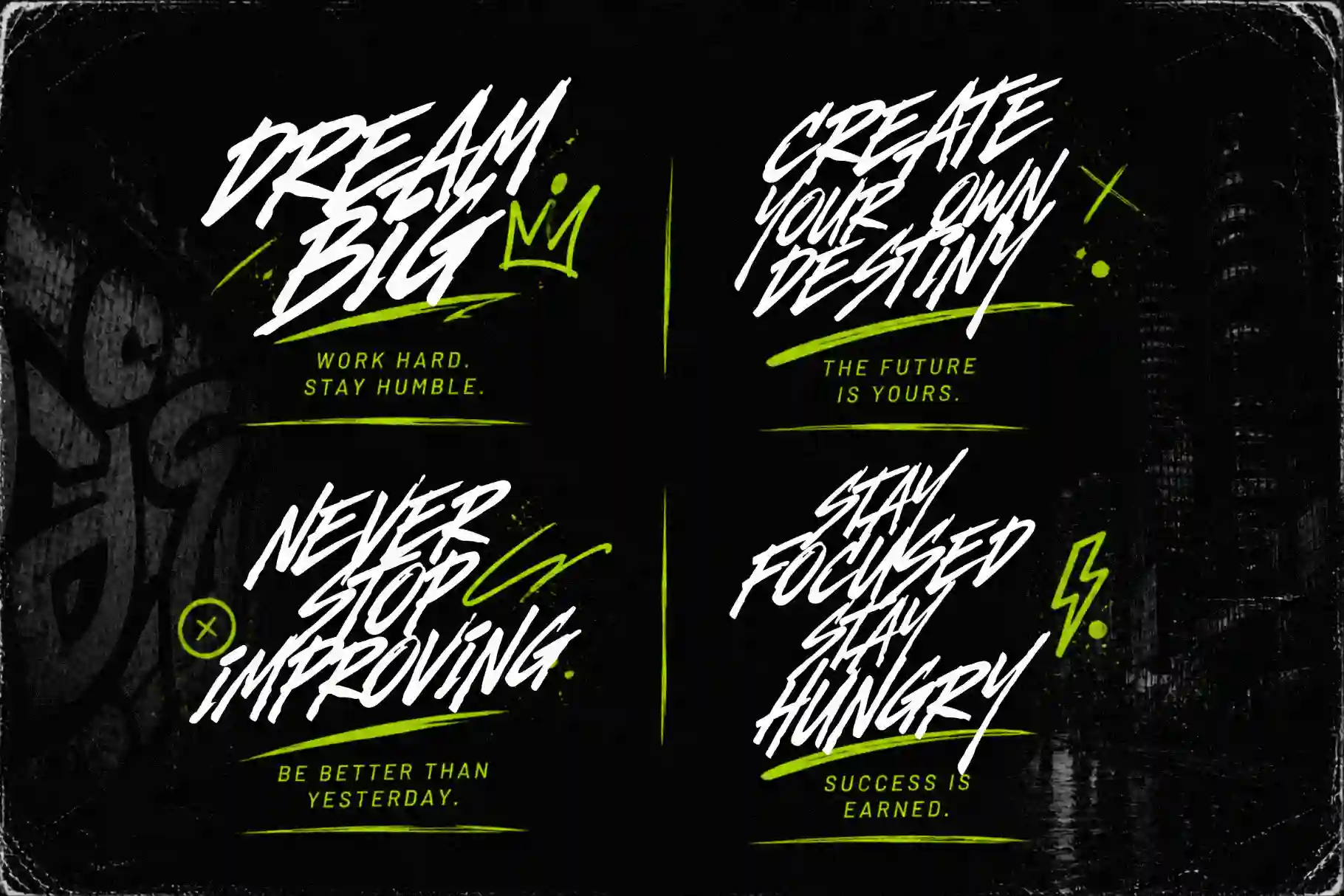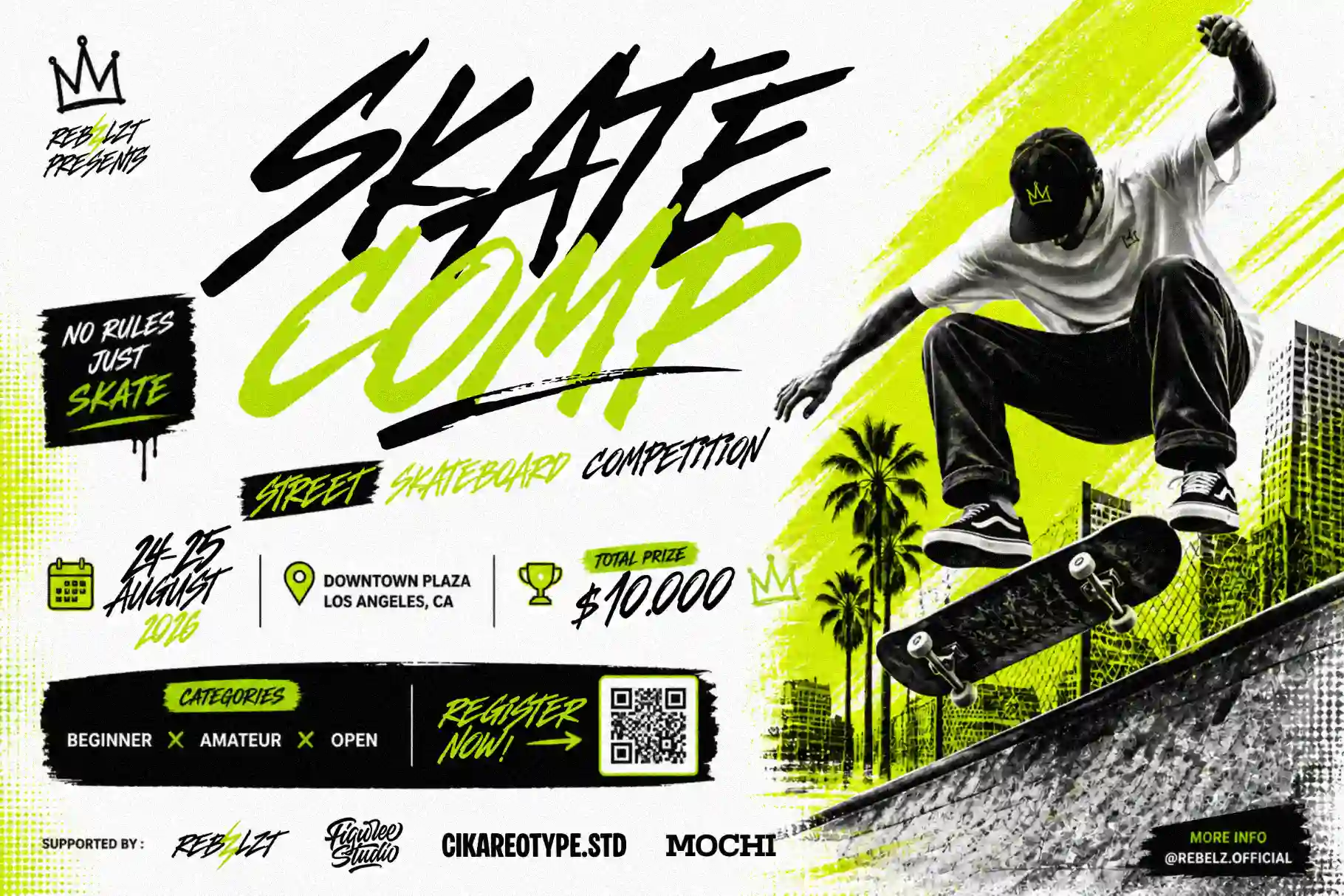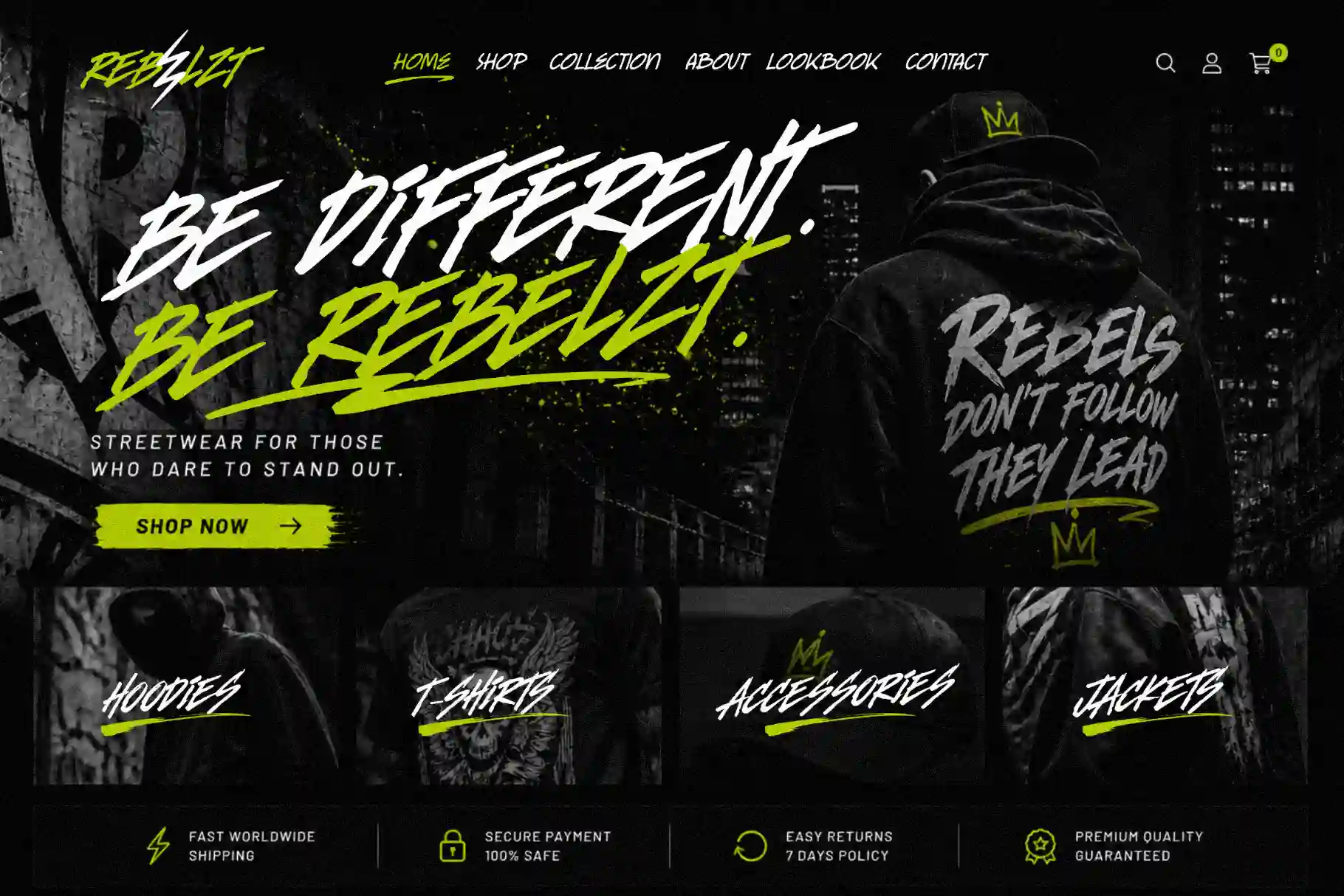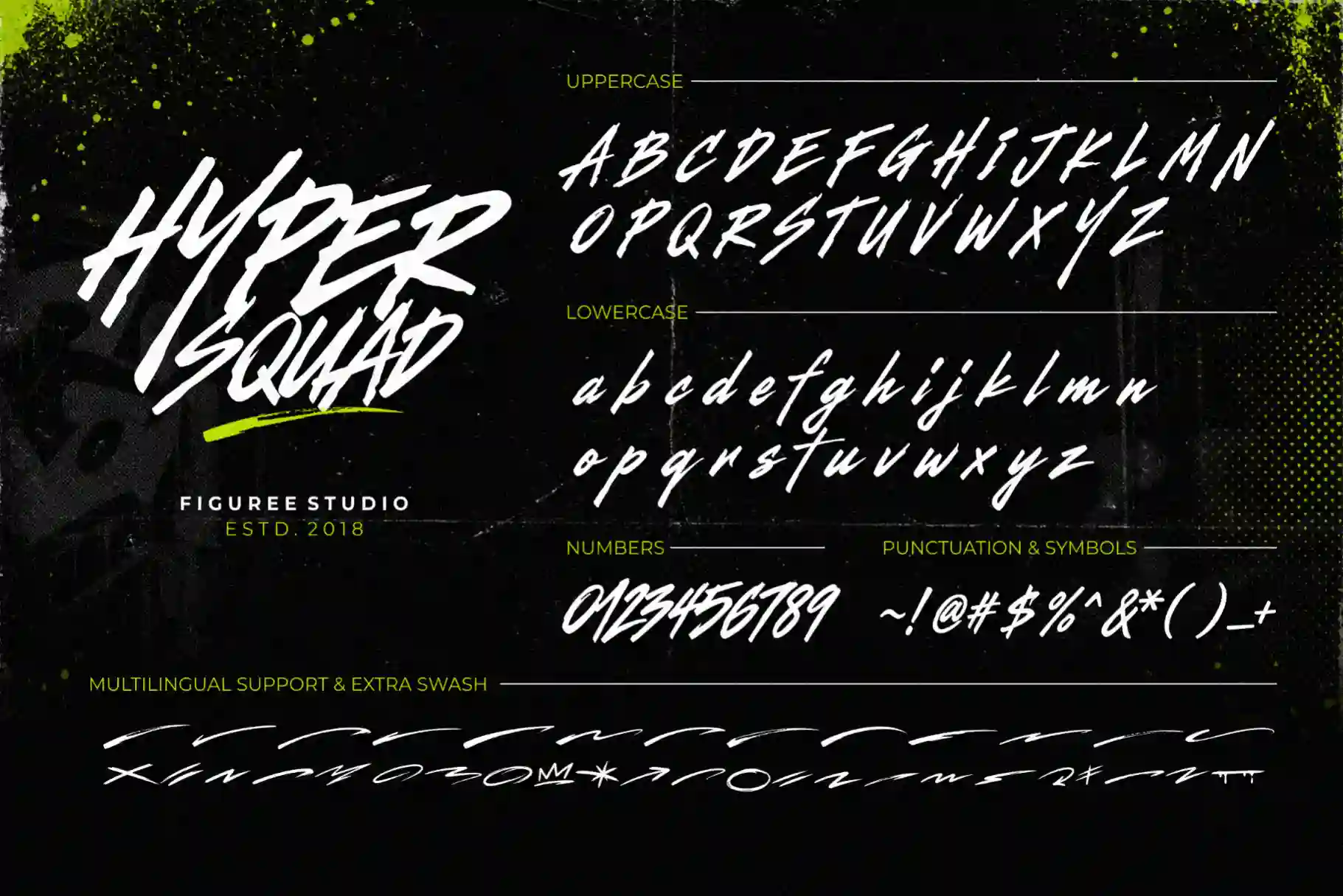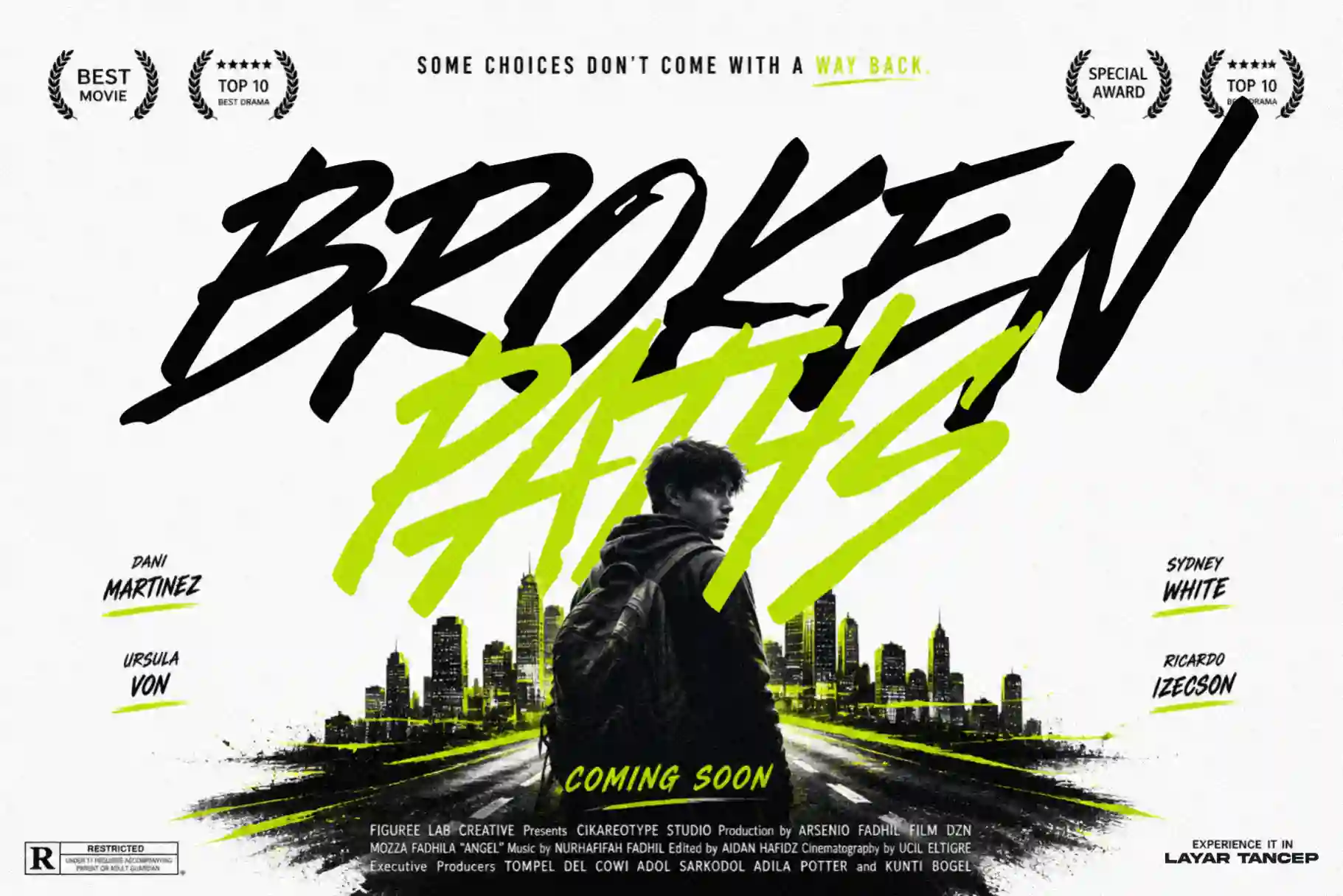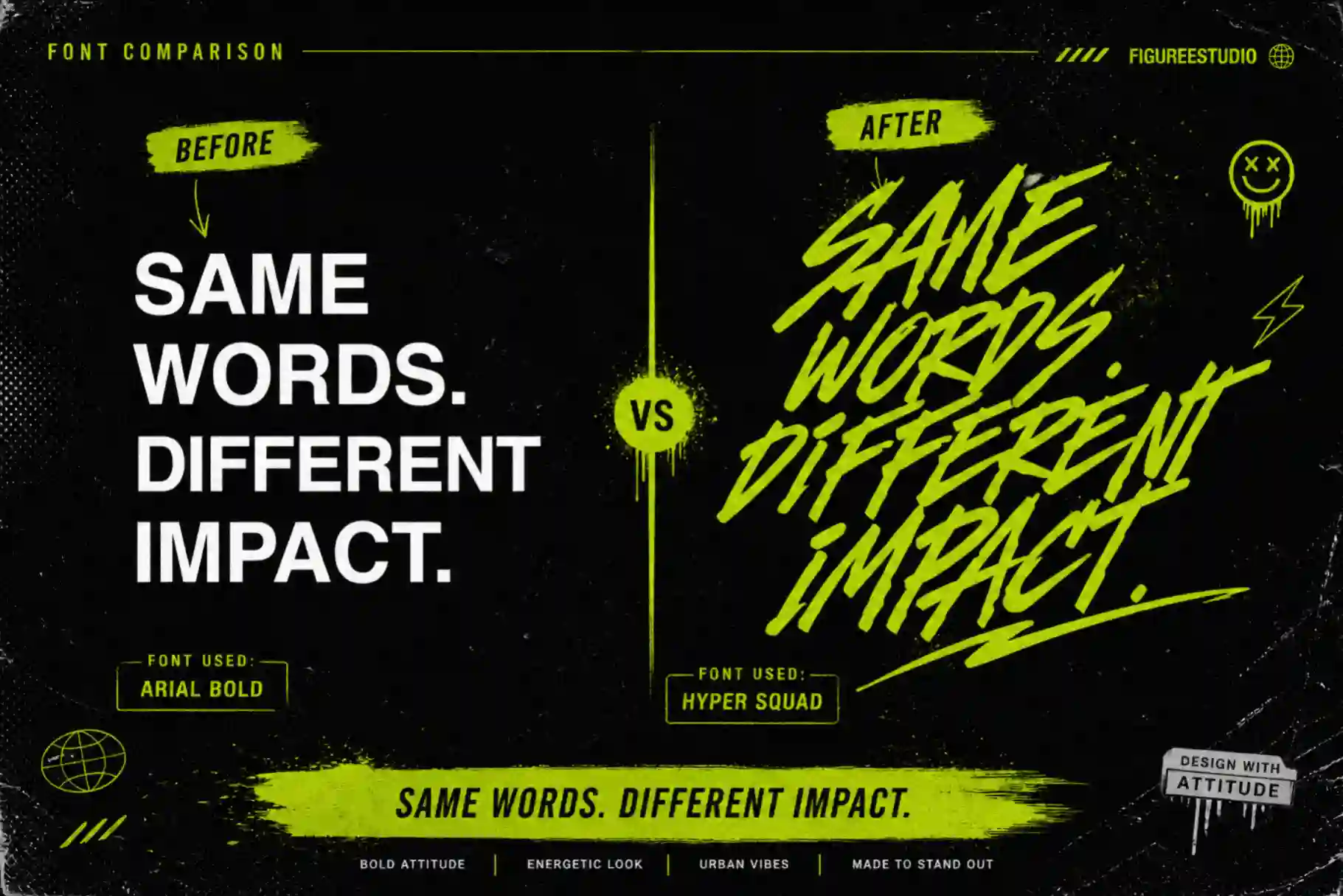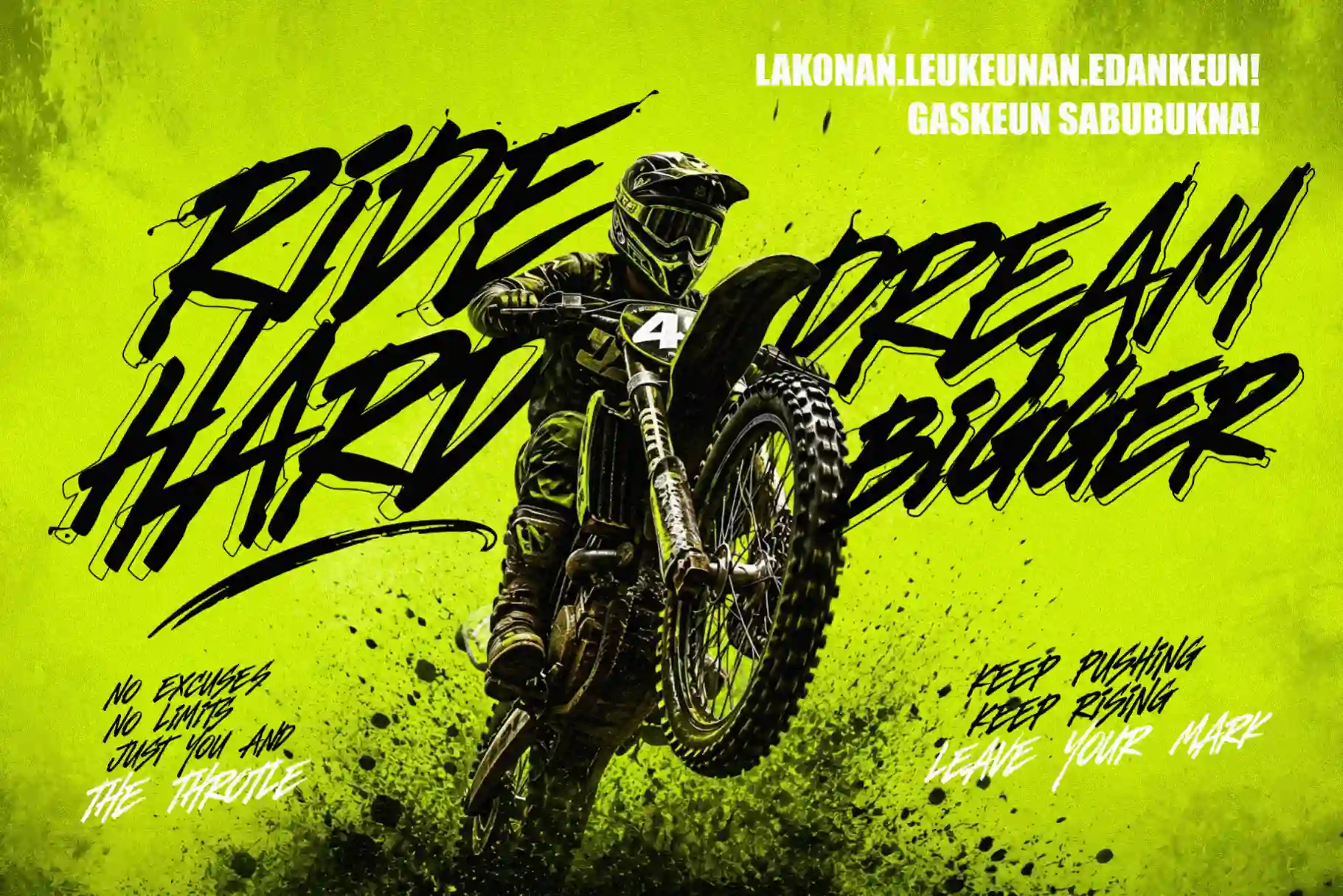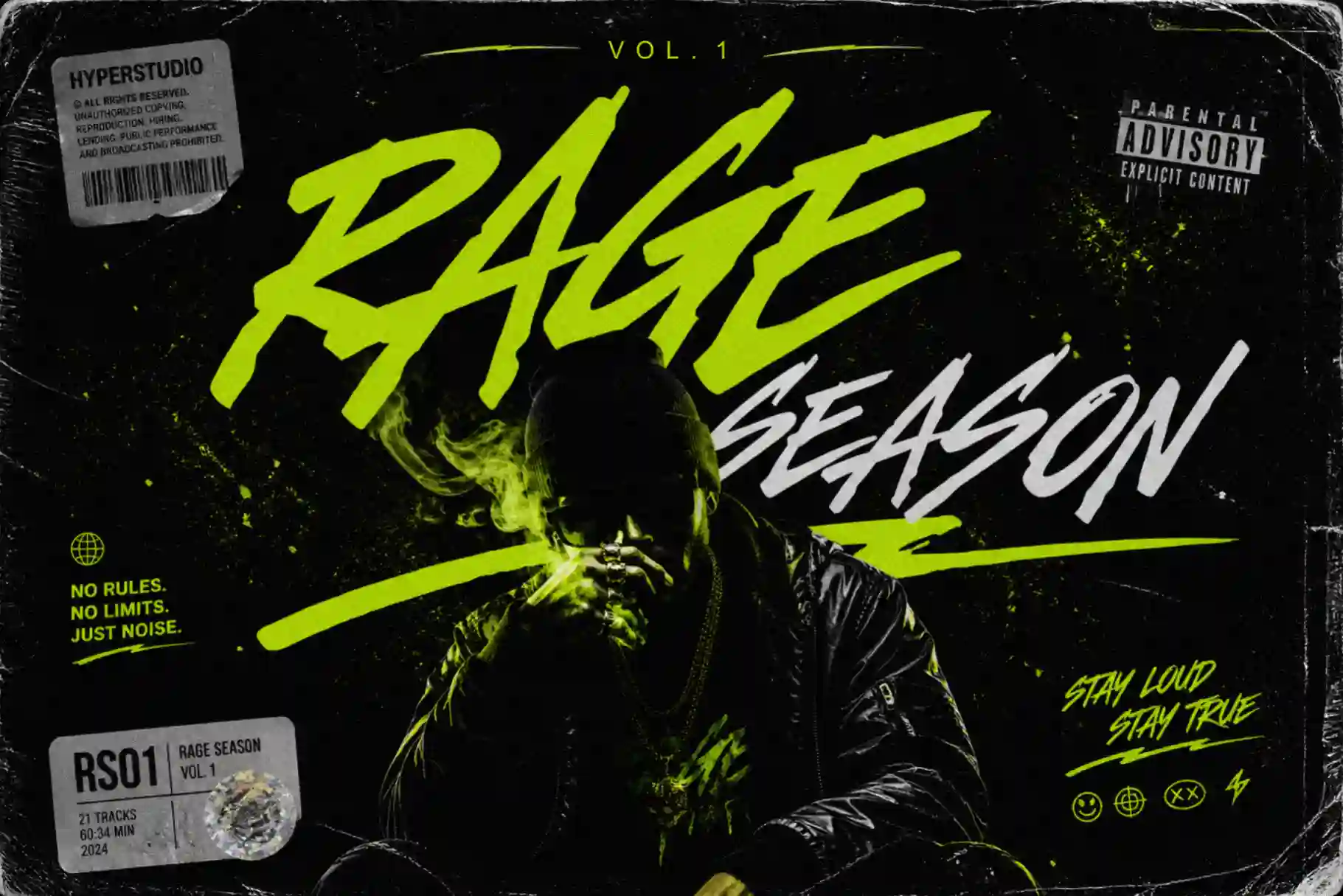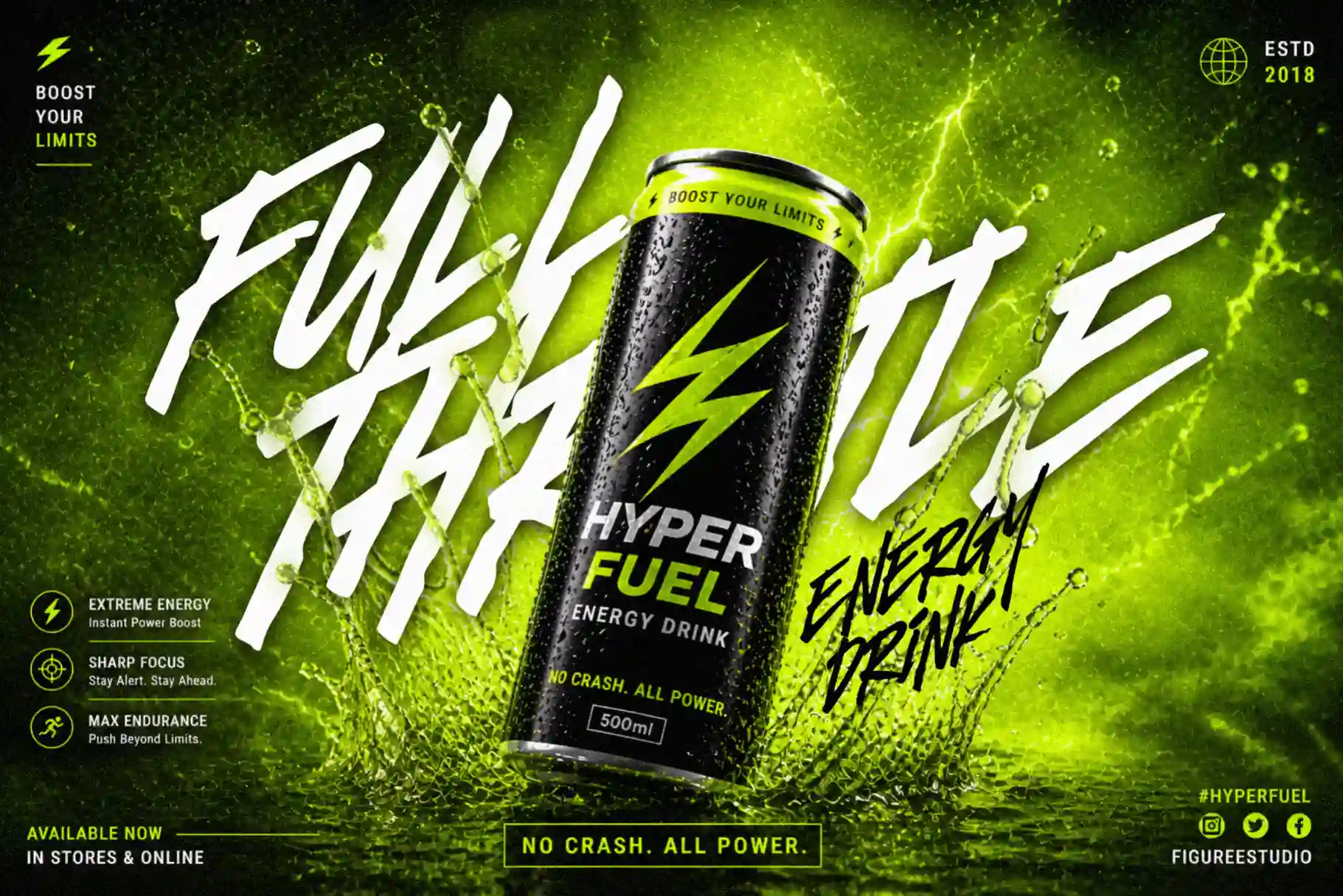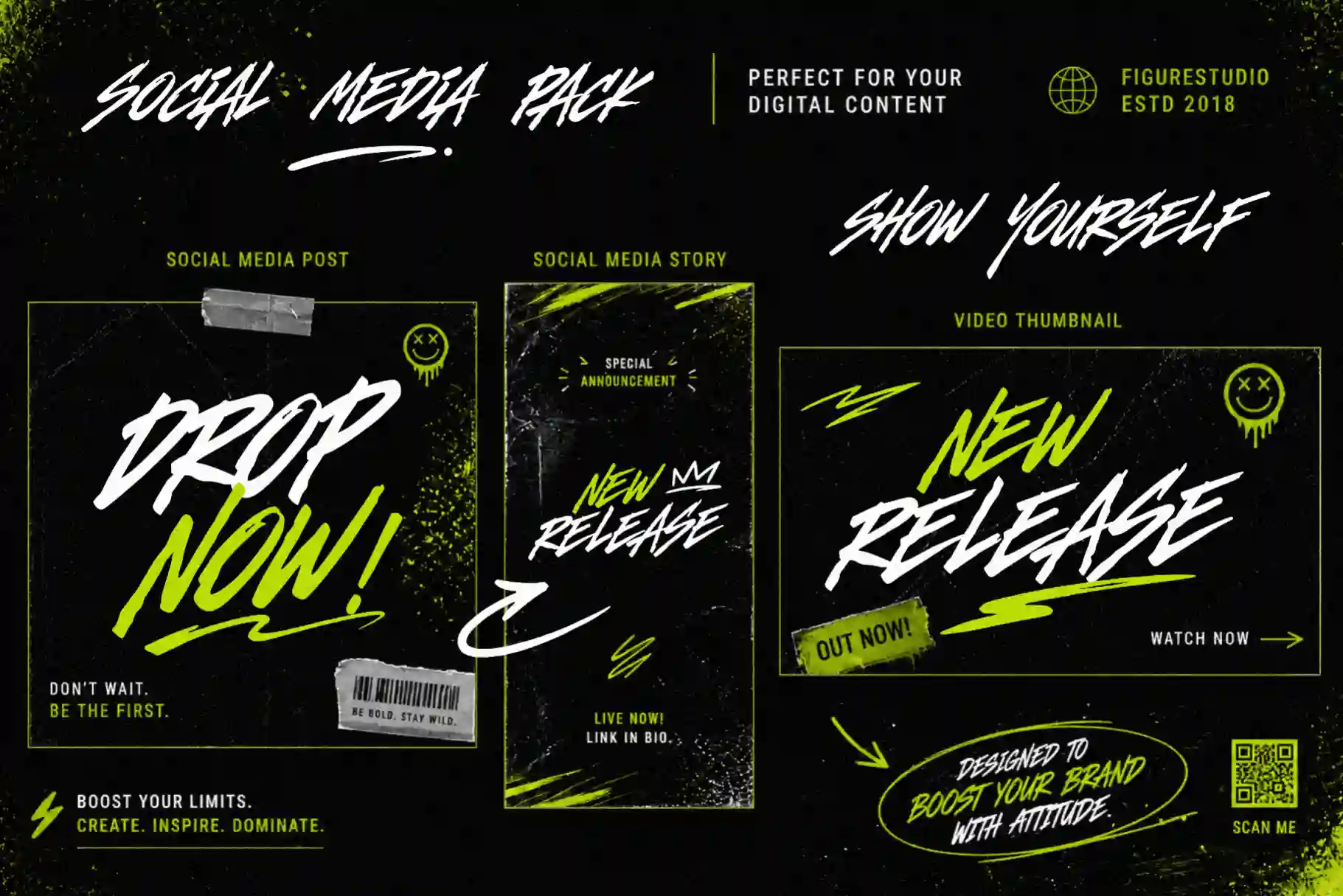
Hyper Squad – Freestyle Brush Font for Bold Creative Expression
Typography is more than just letters—it’s energy, movement, and personality. Hyper Squad – Freestyle Brush Font is built for designers who want to inject raw emotion and bold expression into their work. This freestyle brush font delivers powerful hand-drawn strokes, dynamic flow, and expressive details that instantly elevate logos, posters, and branding projects.
If your design needs attitude, creativity, and impact, Hyper Squad is the freestyle brush font that makes your visuals stand out from the crowd.
Freestyle Brush Font with Raw Energy
Hyper Squad is not just another typeface—it’s a freestyle brush font crafted with a natural hand-painted feel. Each letter is designed with expressive strokes, capturing the spontaneity of real brush lettering while maintaining professional readability.
This makes it perfect for projects that demand bold personality, such as music posters, creative branding, street-style visuals, and digital campaigns. With its energetic look, this freestyle brush font transforms ordinary text into a strong visual statement.
Key Features of Hyper Squad – Freestyle Brush Font
To support your creative workflow, Hyper Squad comes packed with powerful features:
- Ligatures & Extra Swash: Add natural flow and stylish variations
- Multilingual Support: Suitable for global design projects
- Handcrafted Brush Style: Authentic freestyle lettering feel
- Dynamic Movement: Designed for expressive and bold visuals
Why Designers Love This Freestyle Brush Font
Designers love Hyper Squad because it delivers everything expected from a high-quality freestyle brush font while remaining flexible and easy to use.
- Expressive Personality: Every letter feels alive and energetic
- Versatile Usage: Works across branding, posters, and digital media
- Creative Freedom: Ligatures and swashes allow unique compositions
- High Visual Impact: Perfect for attention-grabbing headlines
This freestyle brush font is especially loved by creatives working in music, gaming, and entertainment industries where bold visuals are essential.
Freestyle Brush Font for Logos and Branding
When building a strong brand identity, typography must reflect personality. Hyper Squad works perfectly as a freestyle brush font for logos, delivering a handcrafted and authentic feel that connects emotionally with audiences.
Freestyle Brush Font for Posters and Creative Projects
Posters demand attention, and Hyper Squad delivers it effortlessly. As a freestyle brush font, it thrives in large headlines and dynamic compositions.
Freestyle Brush Font in Digital Media
In today’s fast-paced digital world, visual impact is everything. Hyper Squad as a freestyle brush font works perfectly for social media graphics, YouTube thumbnails, and digital campaigns.
Its bold strokes and organic flow ensure your message stands out instantly, even in crowded feeds. The multilingual support also allows you to use it for global audiences without limitations.
- Features: Ligatures, Extra Swash
Why Hyper Squad is the Freestyle Brush Font You Need
Typography trends continue to evolve toward expressive, handcrafted styles. Hyper Squad captures this perfectly. As a freestyle brush font, it blends authenticity with modern usability, making it a powerful tool for designers.